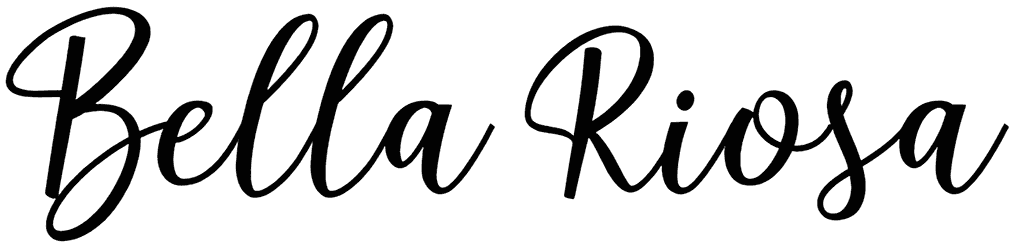
Bella Riosa Font
Bella Riosa font is one of the most romantic, professional, handwritten, and signature fonts we have introduced. This script font can make your simple and unfriendly design very beautiful and pleasing to many audiences, even for designers of the beauty brand. To get your hands on more useful fonts like this one, you can visit our ever-growing inventory and enjoy.